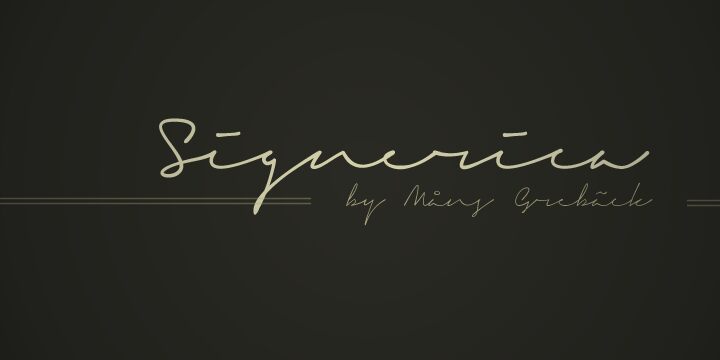
Signerica Thin by Måns Grebäck is a free thin handwritten font with the fluid movement of a personal signature. Its fine strokes change direction sharply, then open into broad loops and sweeping joins. The uneven baseline and extended finishing strokes keep the lettering quick and informal.
Wedding invitations make especially good use of its graceful continuous line. It can also give fashion branding and beauty packaging a personal mark that feels written rather than typeset. Album artwork and magazine features suit the same loose signature style.